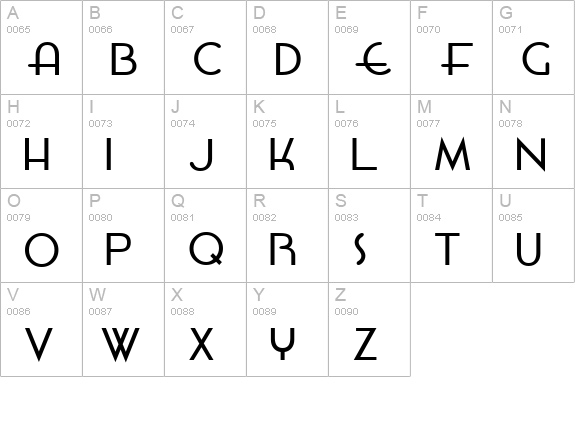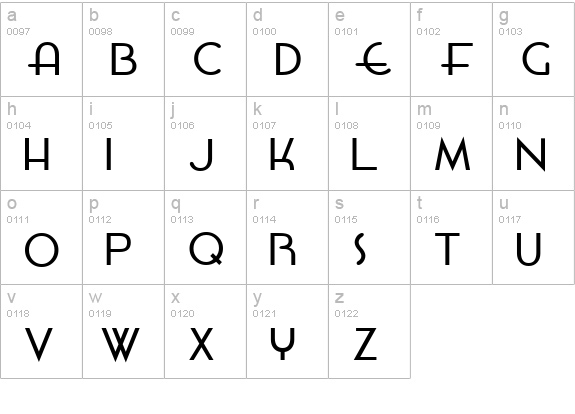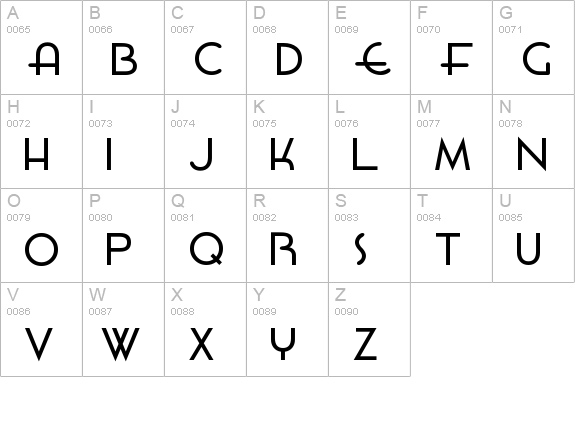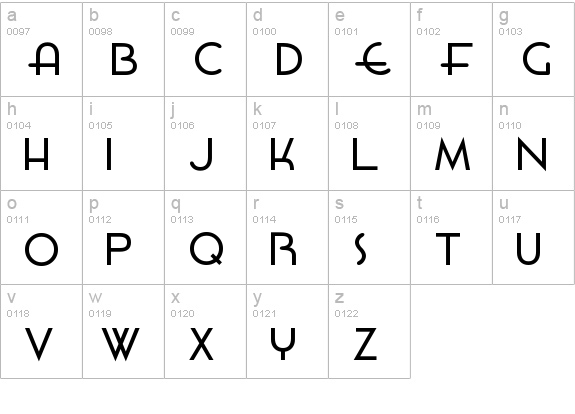
Hamburger Sandwitch Font Details
Introducing Hamburger Sandwitch font, a delightful and flavorful typeface that will leave your designs with a satisfying taste. This font is the perfect blend of boldness and playfulness, making it ideal for a wide range of projects. With its clean lines and distinctive curves, Hamburger Sandwitch font is sure to catch the eye and add a touch of whimsy to any design. Whether you're creating a logo, branding materials, or a poster, this font will deliver a unique and memorable look. But what makes Hamburger Sandwitch font even more appealing is that it is completely free. Yes, you read that right. This font is freely available to download at FontsMarket.com. Say goodbye to expensive licensing fees and hello to the freedom of creativity. So go ahead and sink your teeth into Hamburger Sandwitch font. It's time to elevate your designs with a delectable typography experience that won't cost you a dime.